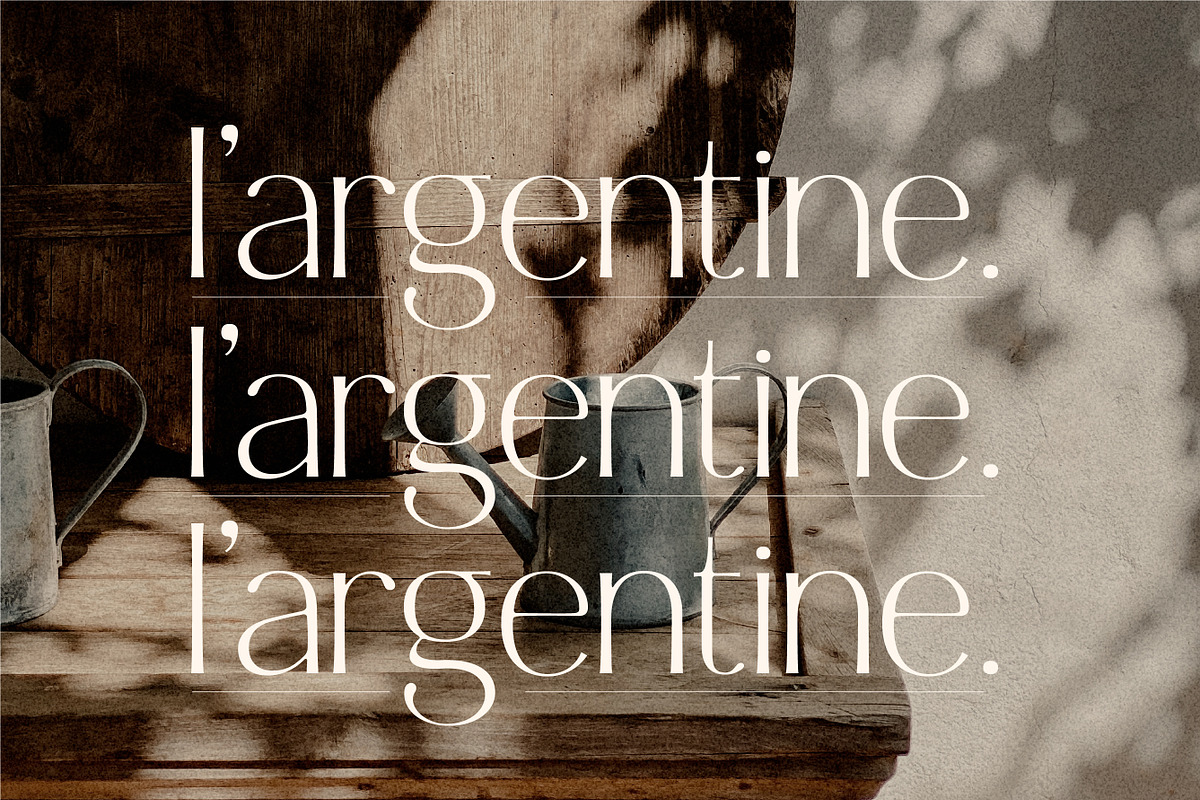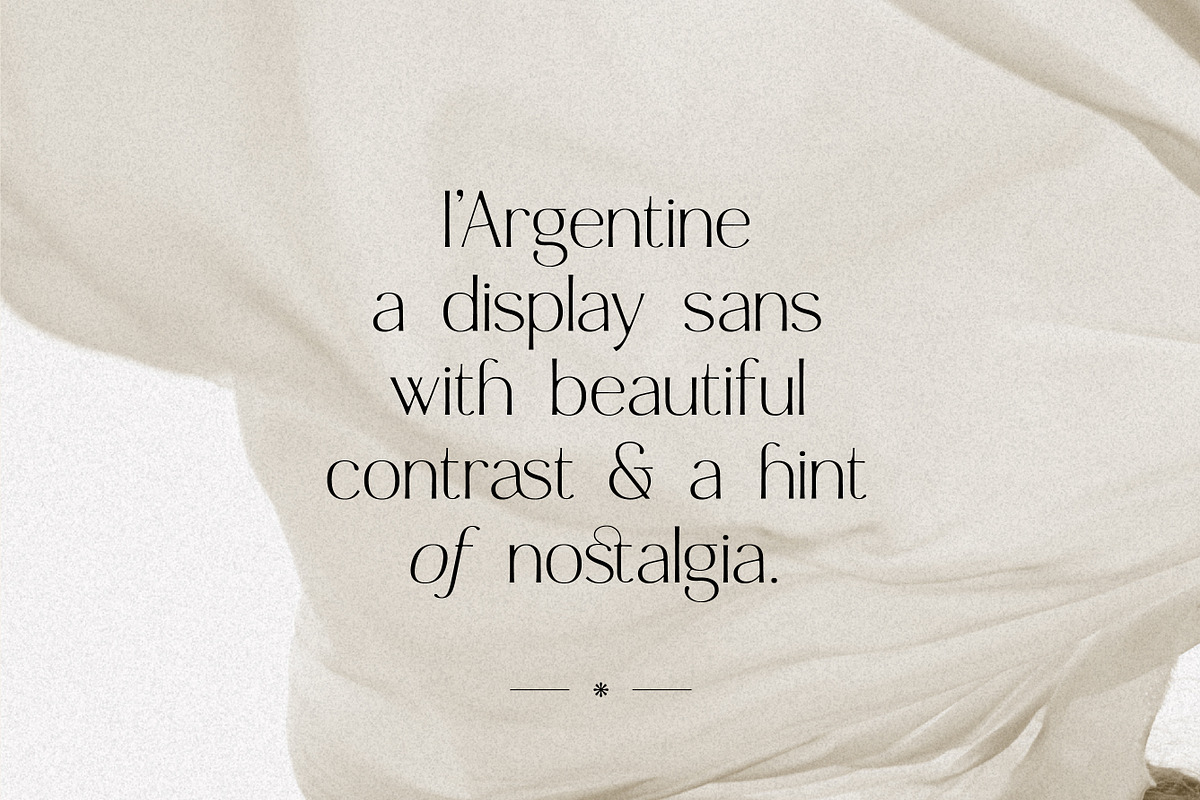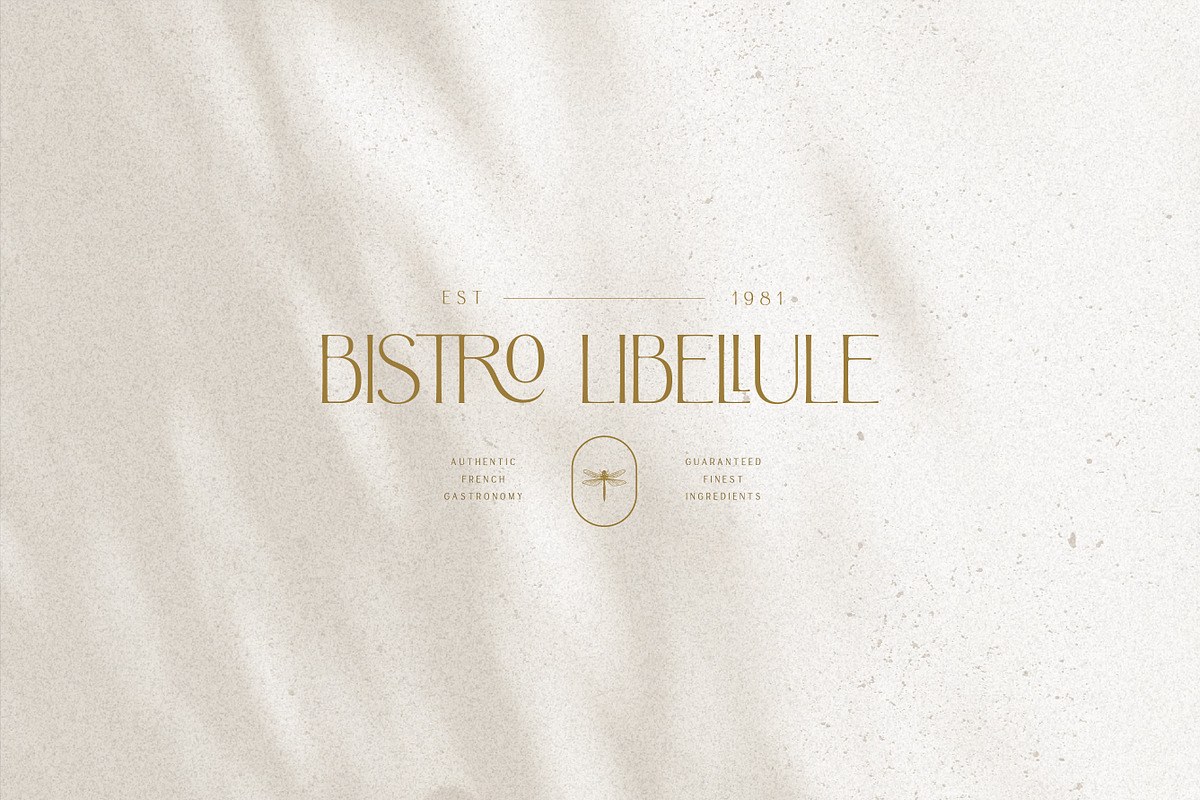
Argentine – a display sans with beautiful contrast & a hint of nostalgia.. Specially designed for retro, elegant projects, Argentine is perfectly suitable for creating simple, lifestyle design such as logos, packaging, editorial, and more.